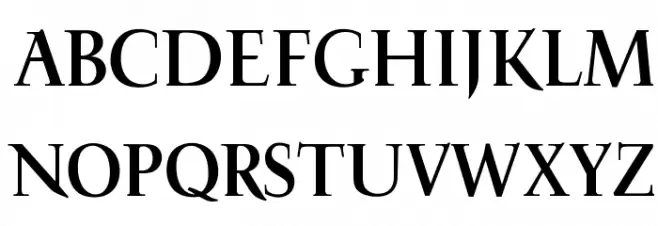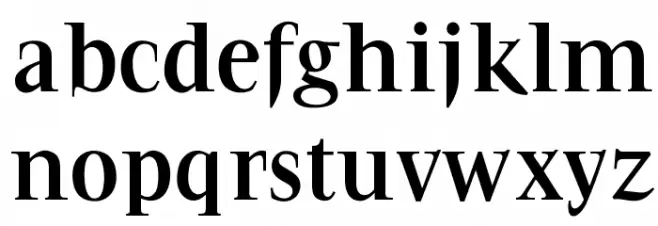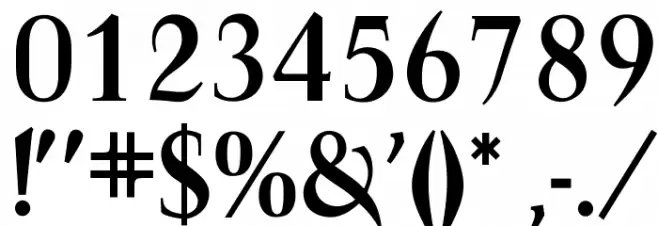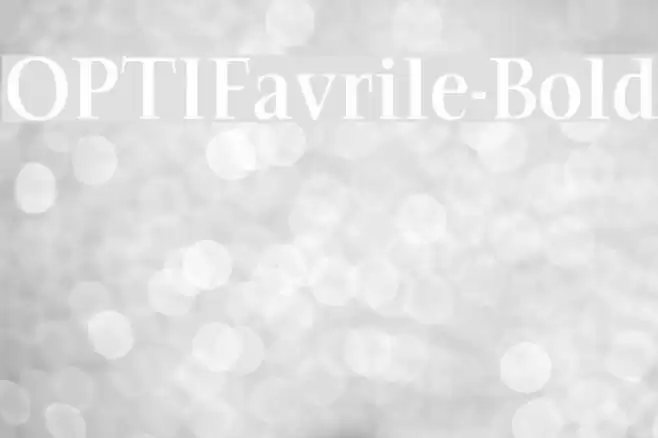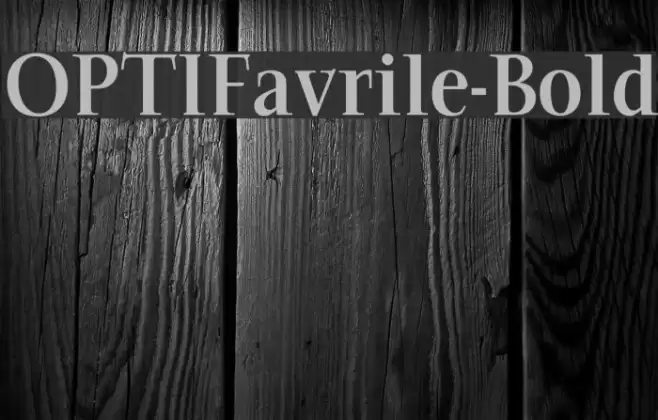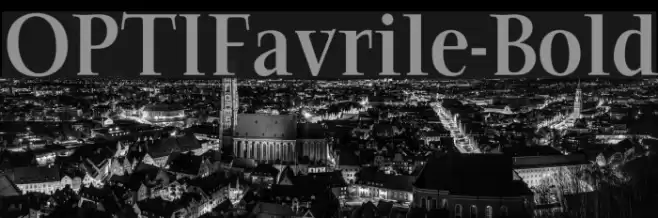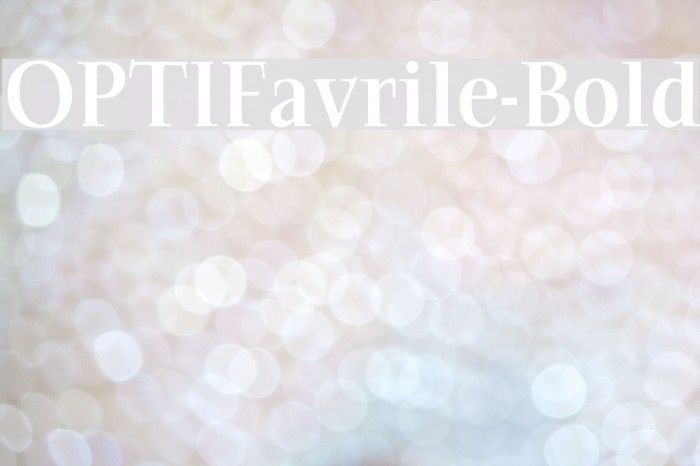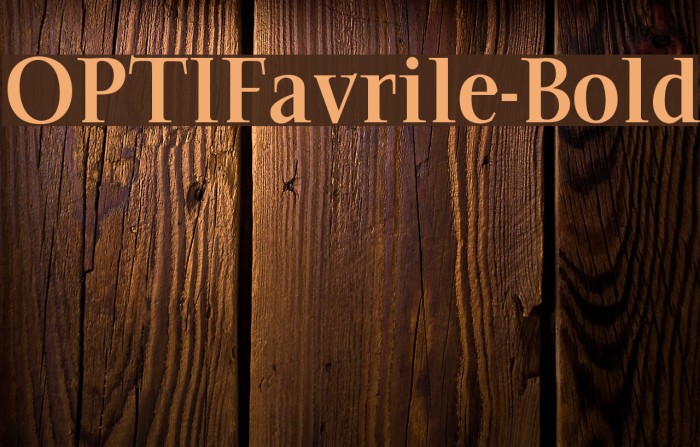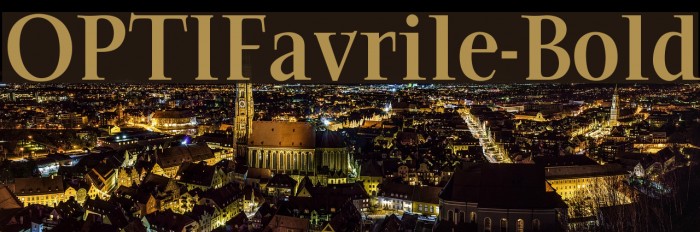
OPTIFavrile-Bold
This font features a classic serif style with bold, pronounced strokes that give it a strong and authoritative presence. The uppercase letters are elegantly proportioned, with a slight contrast between thick and thin strokes, adding a touch of sophistication. The lowercase letters maintain a consistent style, ensuring readability while retaining a sense of elegance. The numerals are clear and well-defined, making them suitable for both formal and informal contexts. Special characters are thoughtfully designed, complementing the overall aesthetic of the font. This typeface is versatile, suitable for a variety of design projects that require a touch of classic elegance.
A bold, classic serif font with elegant proportions and strong strokes.
- Proposed Projects: Ideal for book covers, formal invitations, branding, and editorial design.
- Category: Serif
- Overall Style: Classic